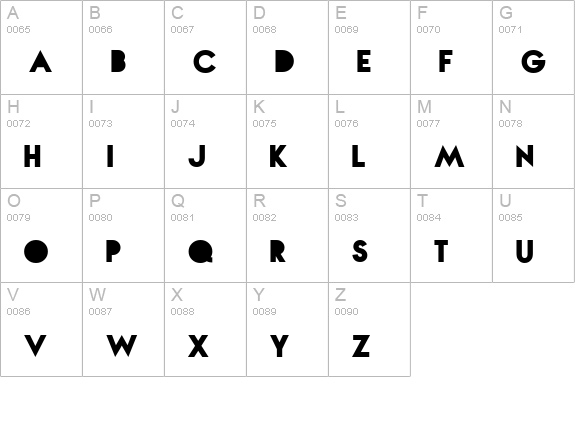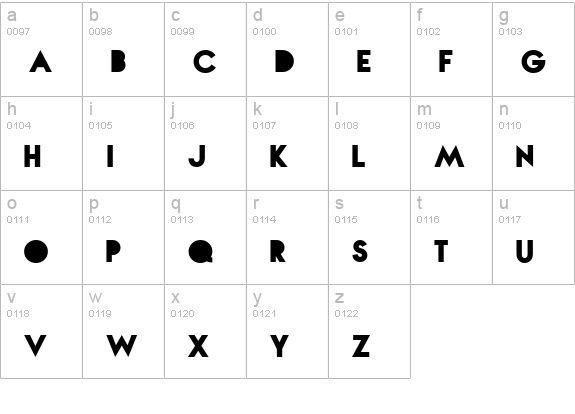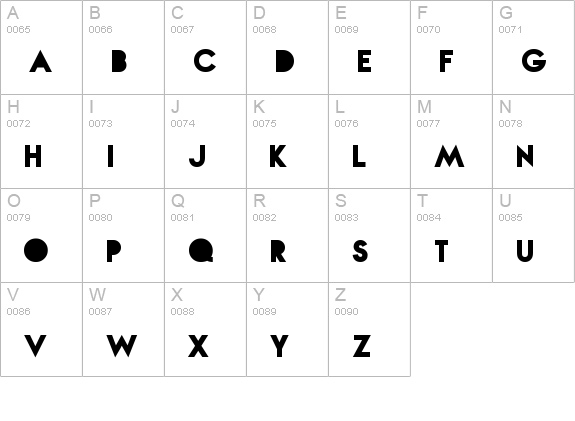
Nova SOLID SOLID Font Details
Introducing Nova SOLID SOLID font, a modern and versatile typeface that is sure to make a bold statement in any design project. With its clean lines and solid presence, this font exudes confidence and sophistication. Designed with meticulous attention to detail, Nova SOLID SOLID font offers a unique blend of elegance and strength. Its sturdy letterforms and refined curves create a harmonious balance, making it suitable for a wide range of applications, from branding and advertising to editorial design and packaging. What sets Nova SOLID SOLID font apart is its ability to seamlessly adapt to various design styles and contexts. Whether you're aiming for a sleek and minimalist look or a more dynamic and energetic vibe, this font has got you covered. Its versatility allows it to complement both modern and traditional aesthetics, making it a valuable asset for any designer's toolkit. And the best part? Nova SOLID SOLID font is available for free download at FontsMarket.com. We believe that great design should be accessible to everyone, and that's why we're offering this font at no cost. Now you can elevate your projects without breaking the bank. So why wait? Take advantage of this incredible opportunity and enhance your designs with the timeless appeal of Nova SOLID SOLID font. Download it today from FontsMarket.com and unlock a world of creative possibilities.